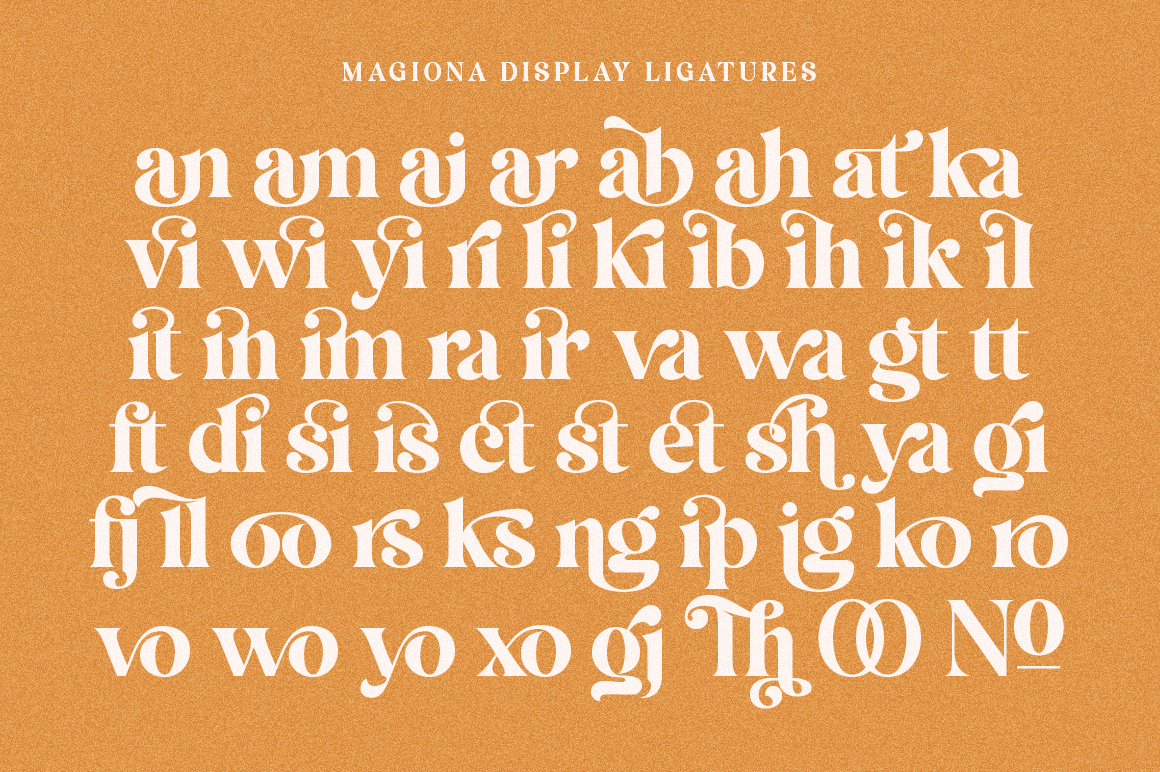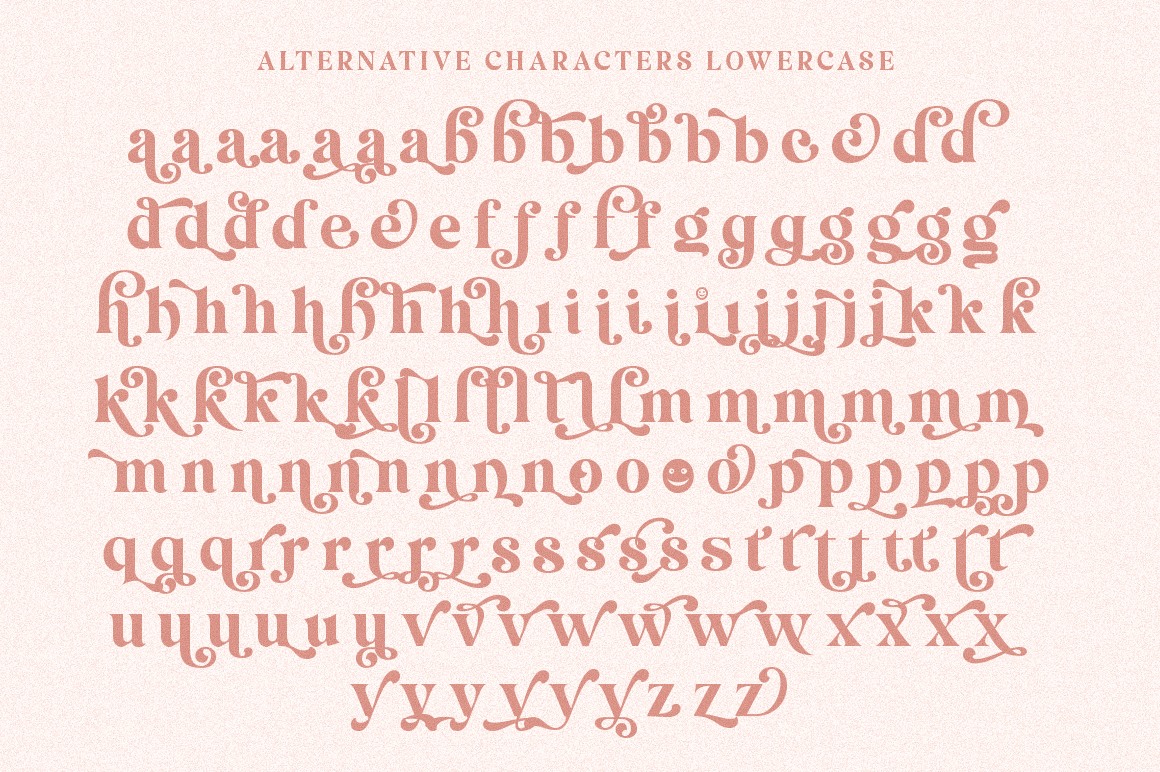
Magiona Display
Font Family by Dora Typefoundry
Magiona Display is classic and sophisticated typography with 2 weights to captivate your next project. A very versatile font that works in both large and small sizes.
This font is suitable for a wide variety of projects such as: headlines, logos, labels, branding projects, magazines, homeware designs, product packaging, mugs, quotes, posters, and more. It can also be more expressive and fun, thanks to the many alternatives and binders that combine harmoniously in this font and make it more interesting and versatile.
Features:
- Full set of uppercase, lowercase letters
- 55 Ligatures
- 245 Alternates
- Big range of numbers, symbols & punctuation
- Characters with accents
- Supports Multiple Languages